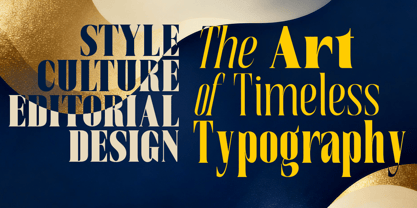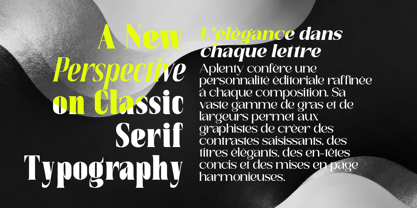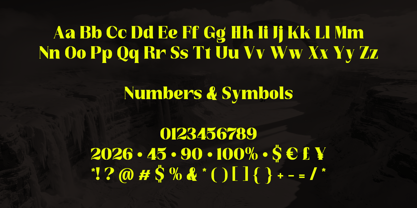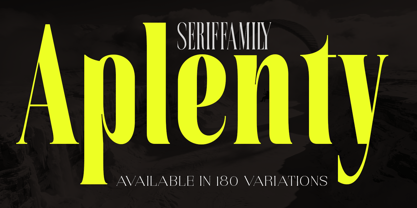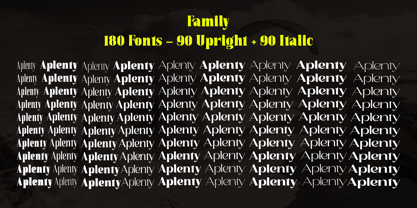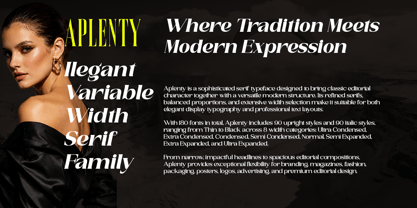
Aplenty
por Artisan Studio
La familia tipográfica Aplenty fue diseñada por Roiyani Teungku y publicada por Artisan Studio. Aplenty contiene 180 estilos y opciones de paquete familiar. Más información sobre esta familia
Aplenty — Elegant Variable-Width Serif Family
Aplenty is a sophisticated serif typeface designed to bring classic editorial character together with a versatile modern structure. Its refined serifs, balanced proportions, and extensive width selection make it suitable for both elegant display typography and professional text layouts.
With 180 fonts in total, Aplenty includes 90 upright styles and 90 italic styles, ranging from Thin to Black across 8 width categories: Ultra Condensed, Extra Condensed, Semi Condensed, Normal, Semi Expanded, Extra Expanded, and Ultra Expanded.
From narrow, impactful headlines to spacious editorial compositions, Aplenty provides exceptional flexibility for branding, magazines, fashion, packaging, posters, logos, advertising, and premium editorial design.
Family
180 Fonts — 90 Upright + 90 Italic
Widths
Ultra Condensed · Extra Condensed · Semi Condensed · Normal · Semi Expanded · Extra Expanded · Ultra Expanded
Weights
Thin · Extra Light · Regular · Medium · Semi Bold · Bold · Extra Bold · Black · Extra Black
Diseñadores: Roiyani Teungku
Fundición: Artisan Studio